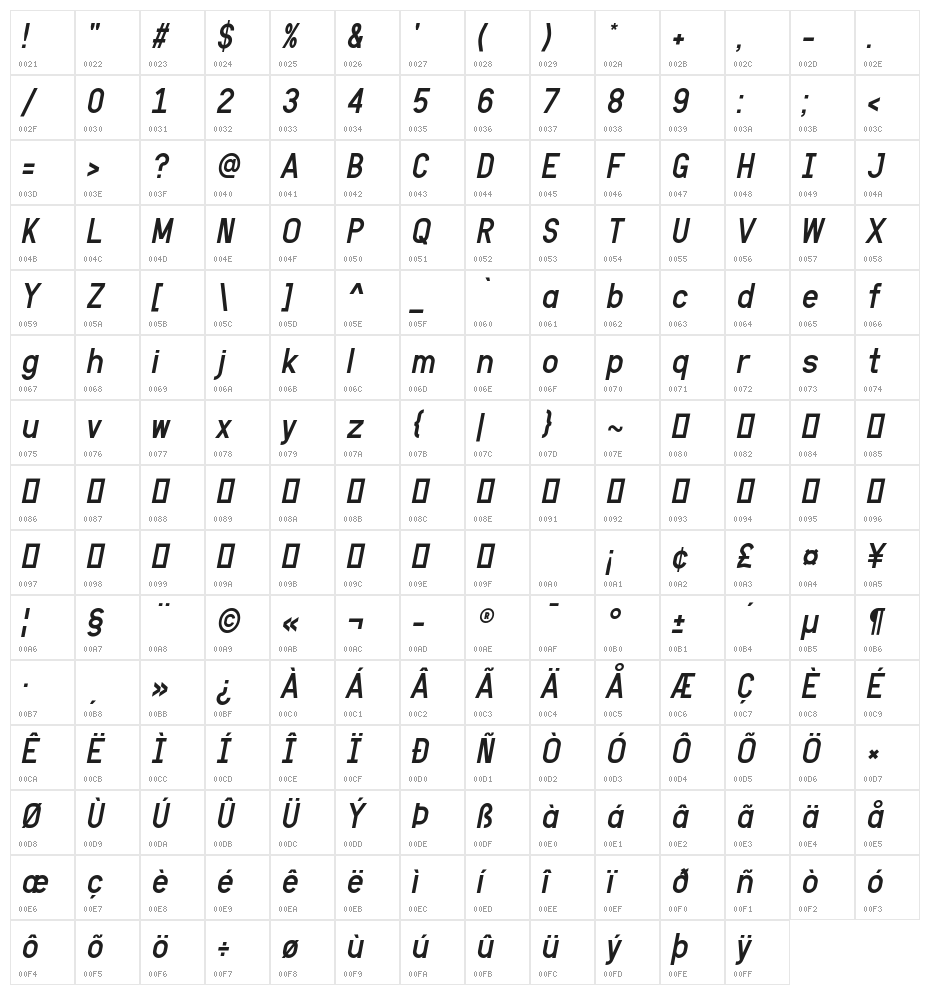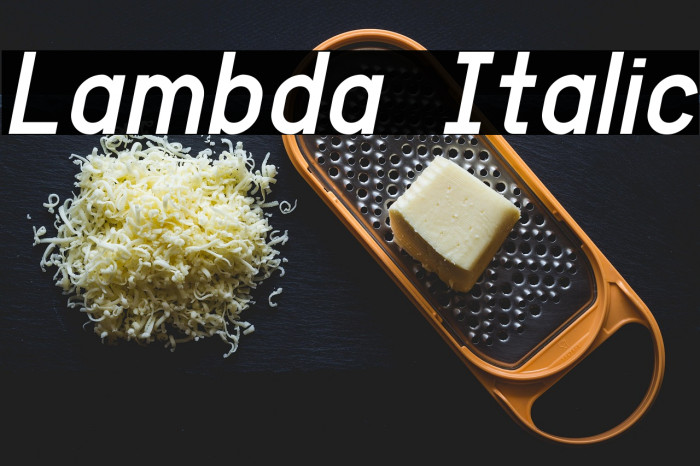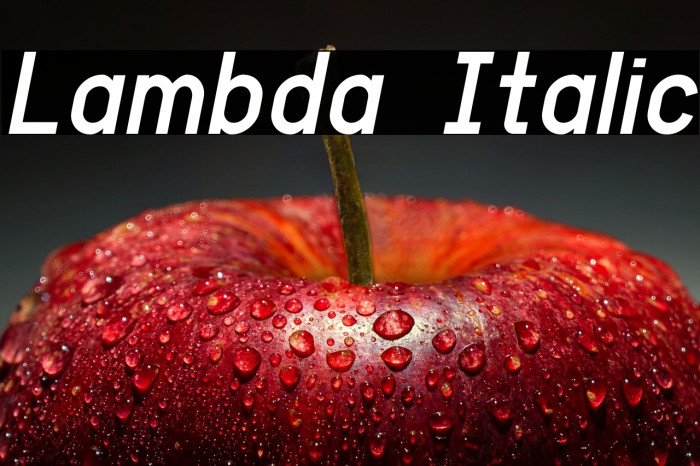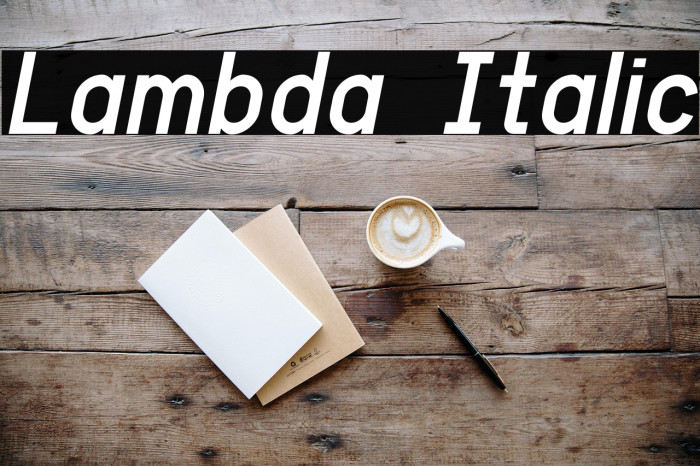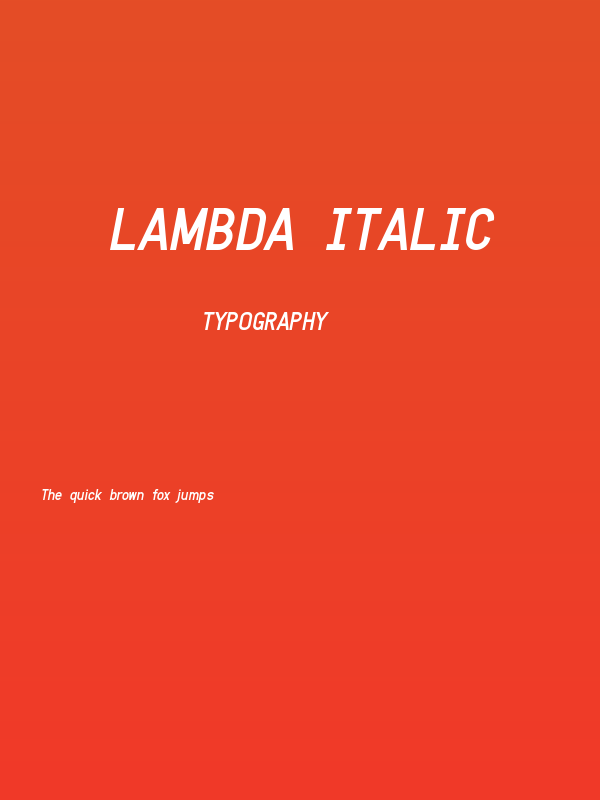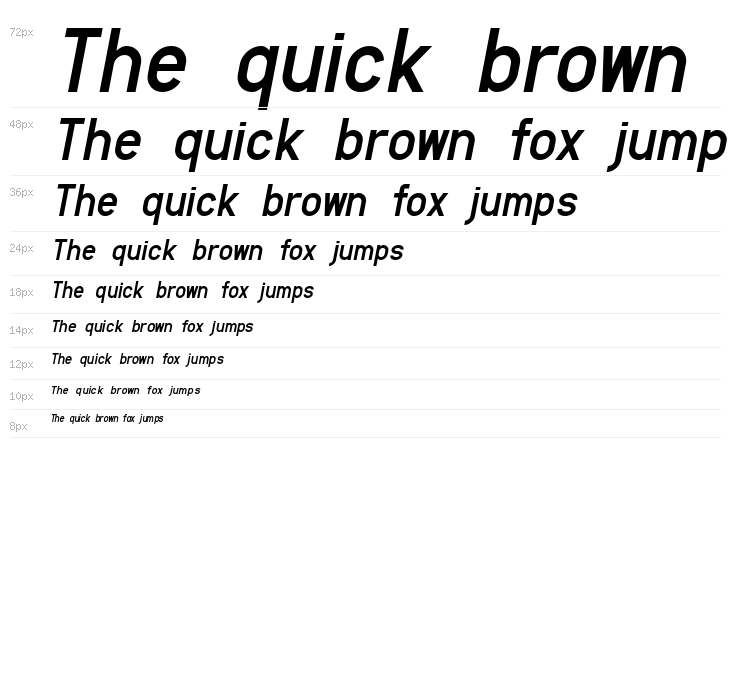
Lambda Italic Font
Lambda Italic Description
This font features a sleek, italicized style with a modern and dynamic appearance. The characters are slightly slanted, giving a sense of motion and fluidity. The strokes are consistent in thickness, providing a uniform look across all characters. The uppercase and lowercase letters are well-proportioned, and the numerals are clear and easy to read. Special characters are included, maintaining the same italicized style. The overall design is clean and professional, making it suitable for a variety of applications.
| Proposed Projects | Ideal for branding, advertising, and editorial design projects where a modern and dynamic look is desired. |